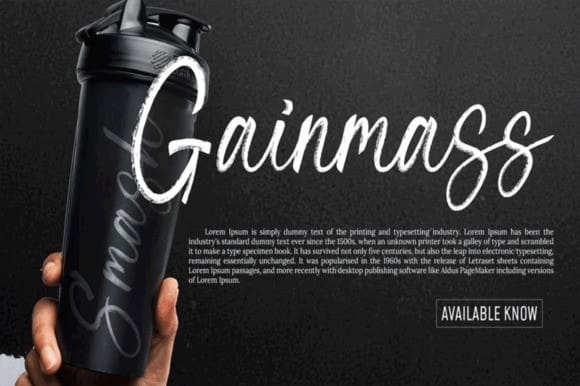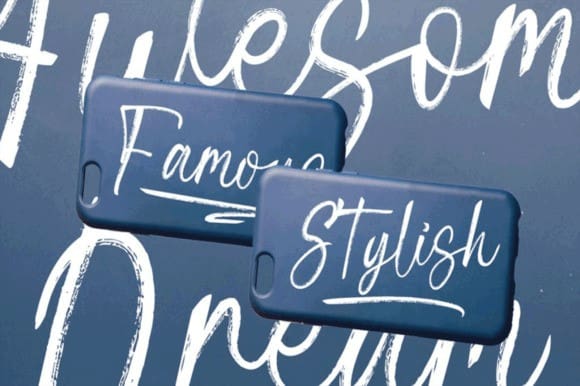
Right Brush Font
Right Brush Font, is a lovely and timeless handwritten brush font. It is the best choice for creating eye-catching logos, branding, and quotes. Every letter has a unique and beautiful touch, which will make your design come alive